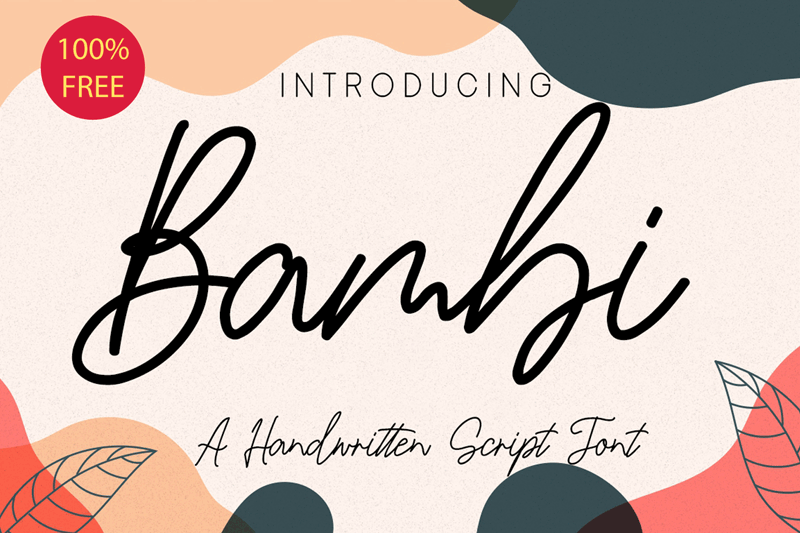
Introducing Bambi Handwritten Font. It is an elegant modern handwritten font with casual writing. It is perfect for branding, signature logo, wedding invitation, photography, and you can use and take advantage of Bambi, for promotional material and anything. Give your designs an authentic brush handcrafted feel. Free font for personal and commercial use. You can download it here: https://www.dafont.com/kenz.d8820 https://befonts.com/author/177studio See more of my other products and buy it to support me! https://177studio.com https://gumroad.com/177studio |